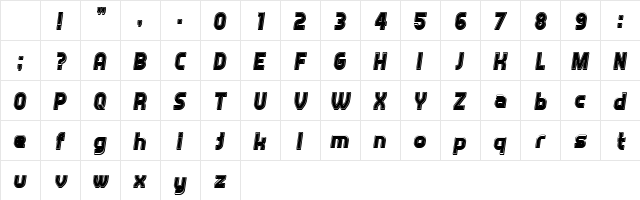
Complete Answer 3D Filled Italic glyph index. Displaying only characters natively supported by Answer 3D Filled Italic font.
Answer 3D Filled is a composed and adaptable typeface that performs quietly and consistently across a wide range of design contexts. The slanted form adds forward momentum and visual energy.
Pro Tip: Use Answer 3D Filled for emphasis, pull quotes, and subheadings where its slanted energy can add rhythm to the layout.